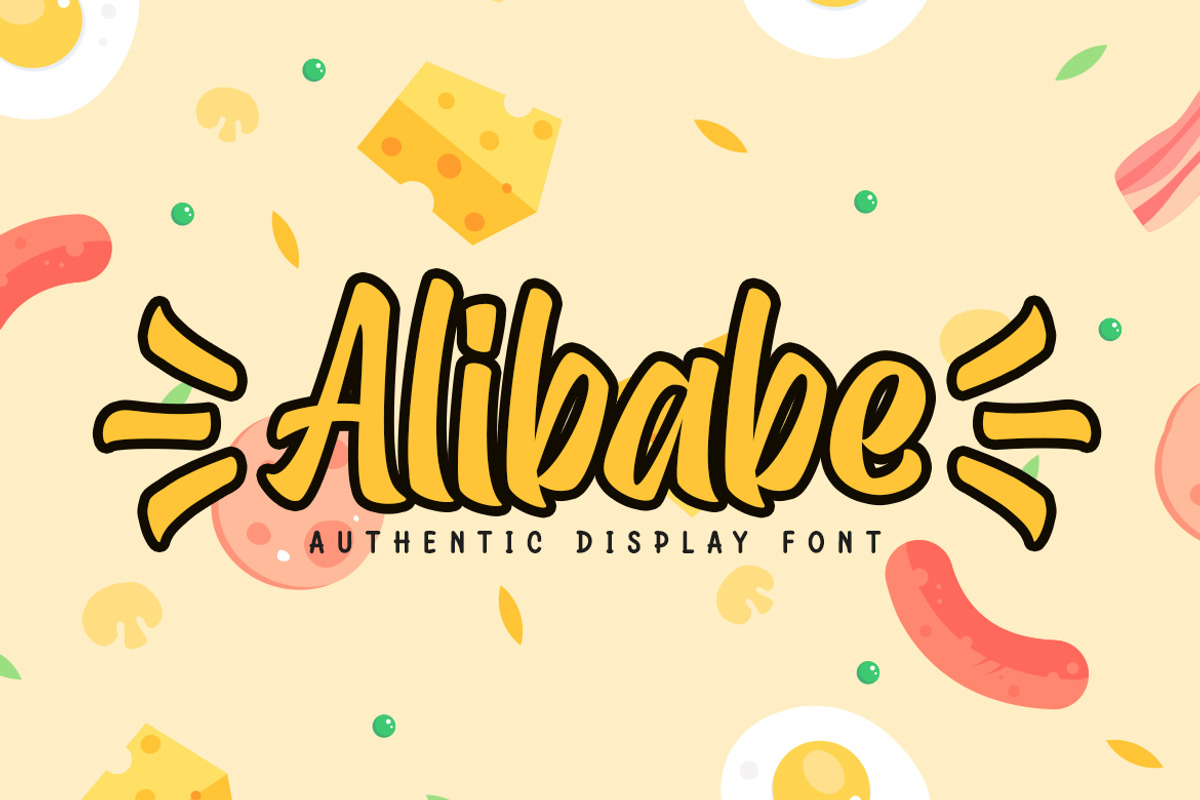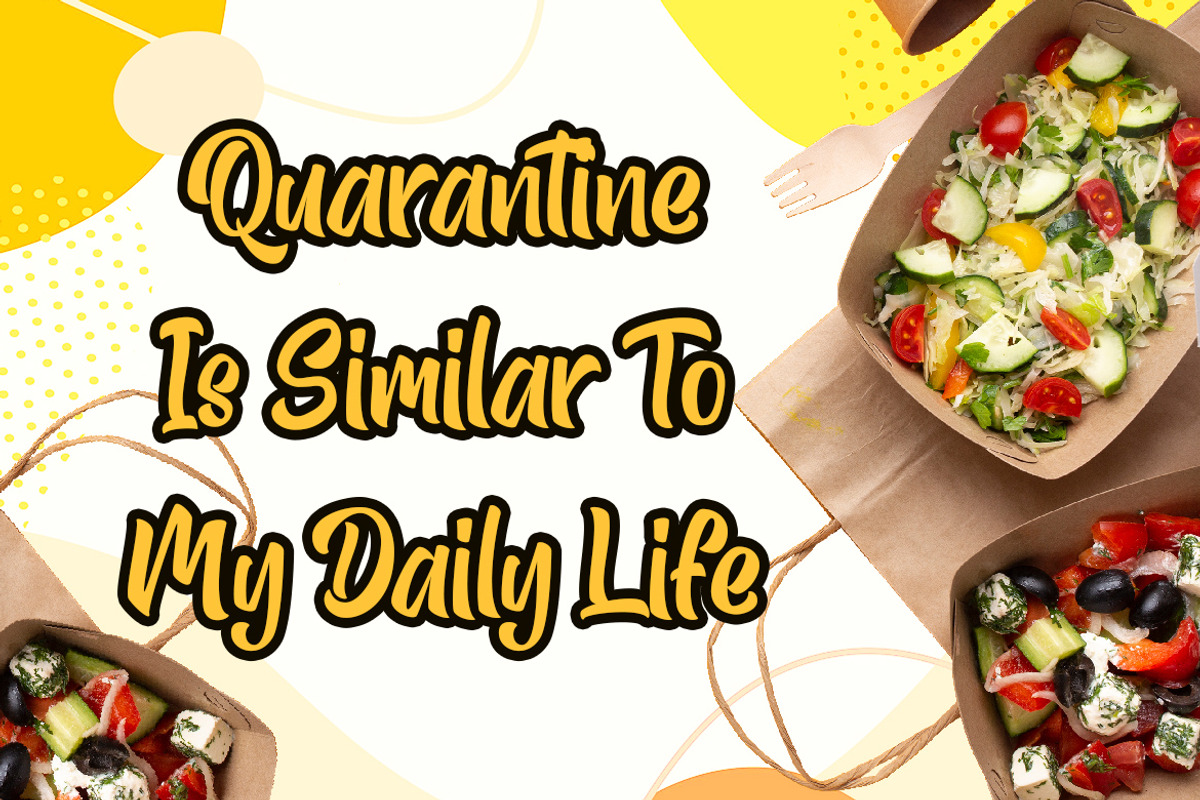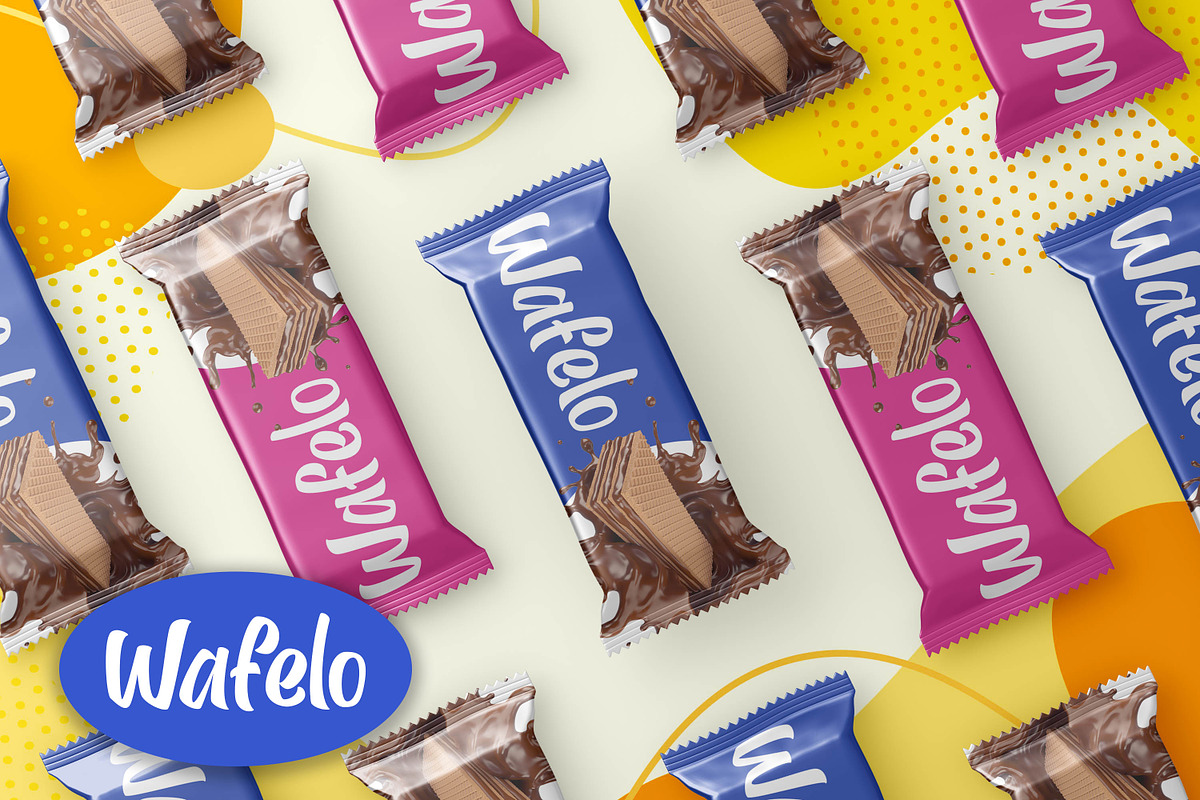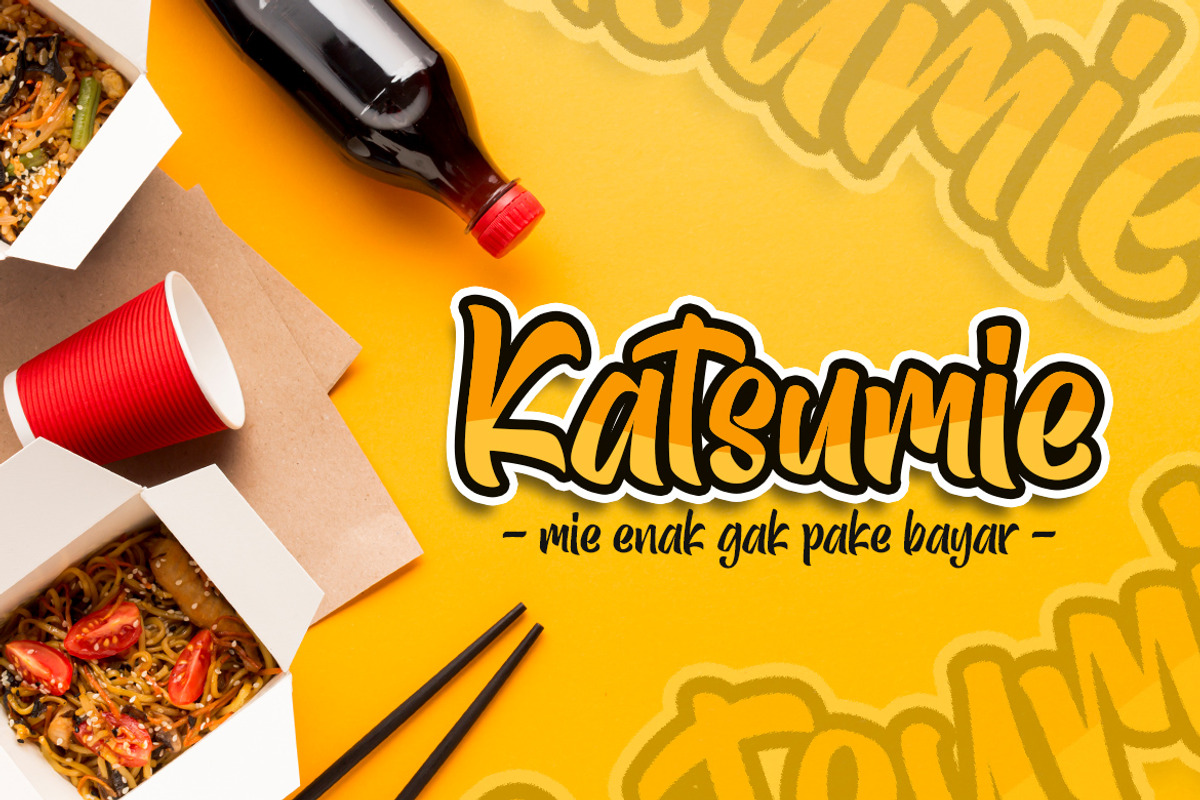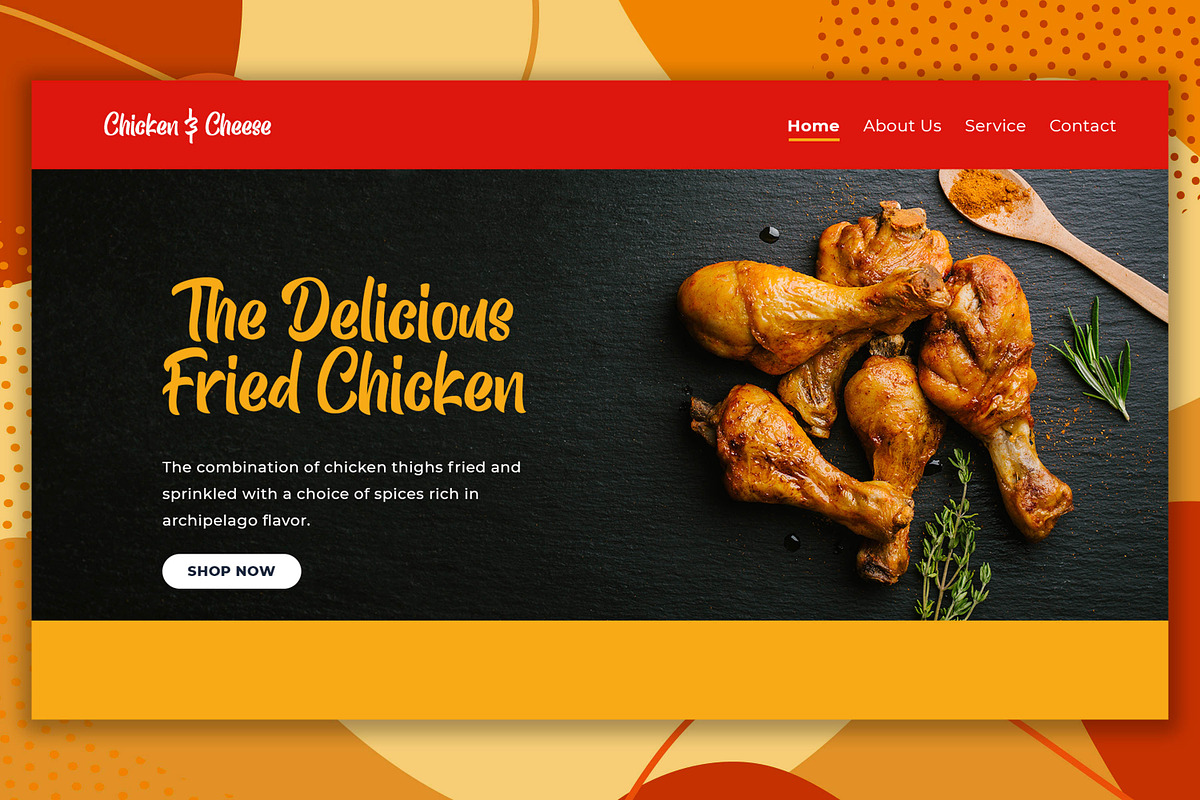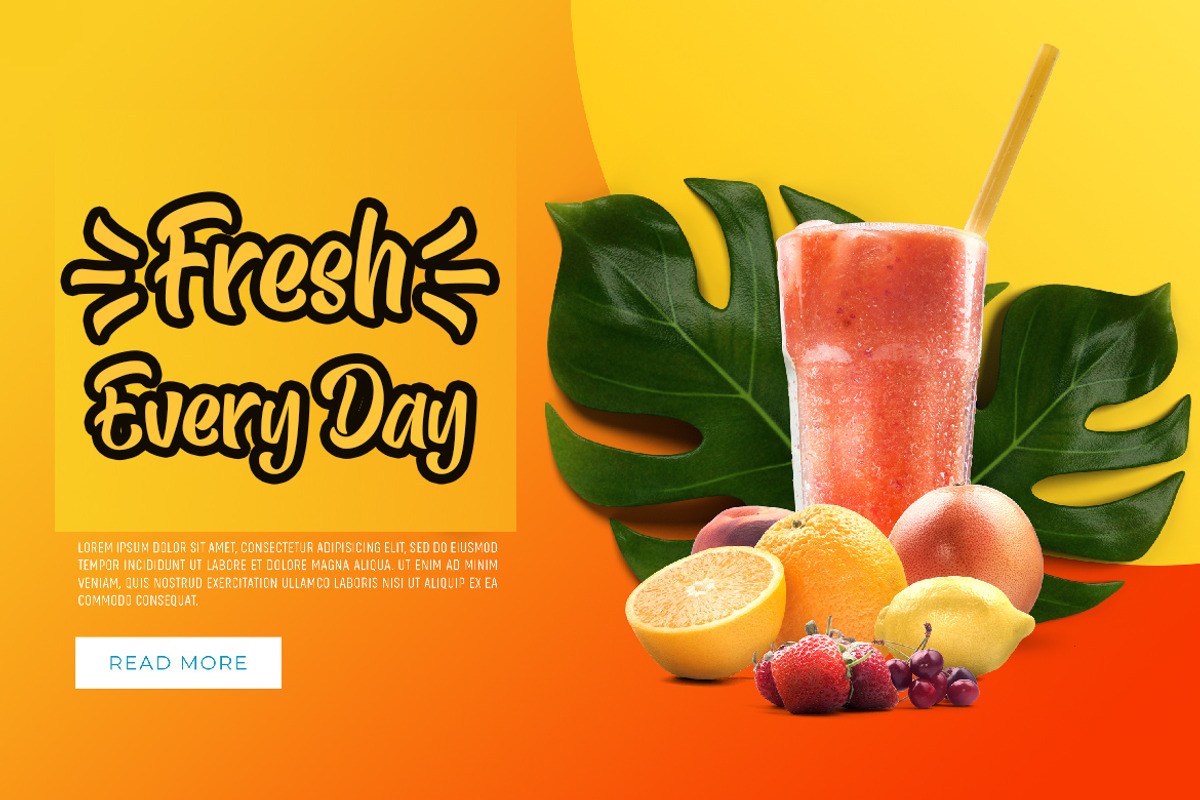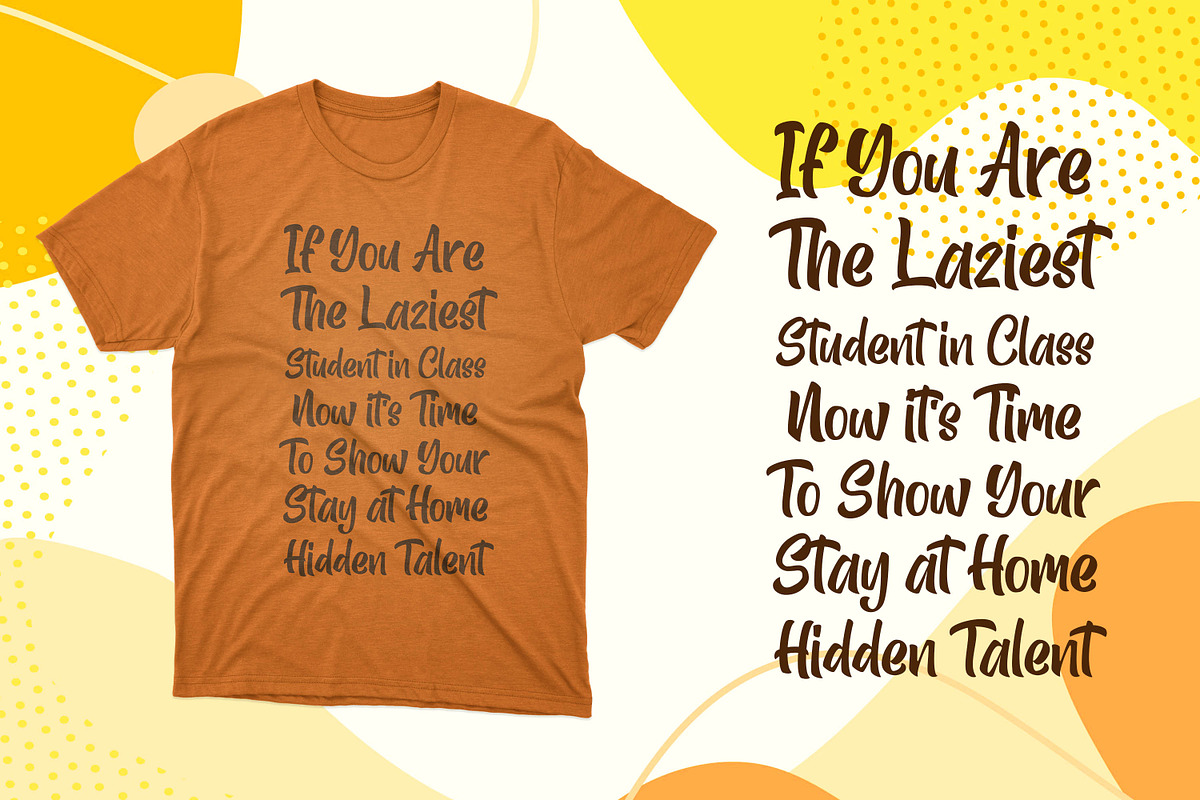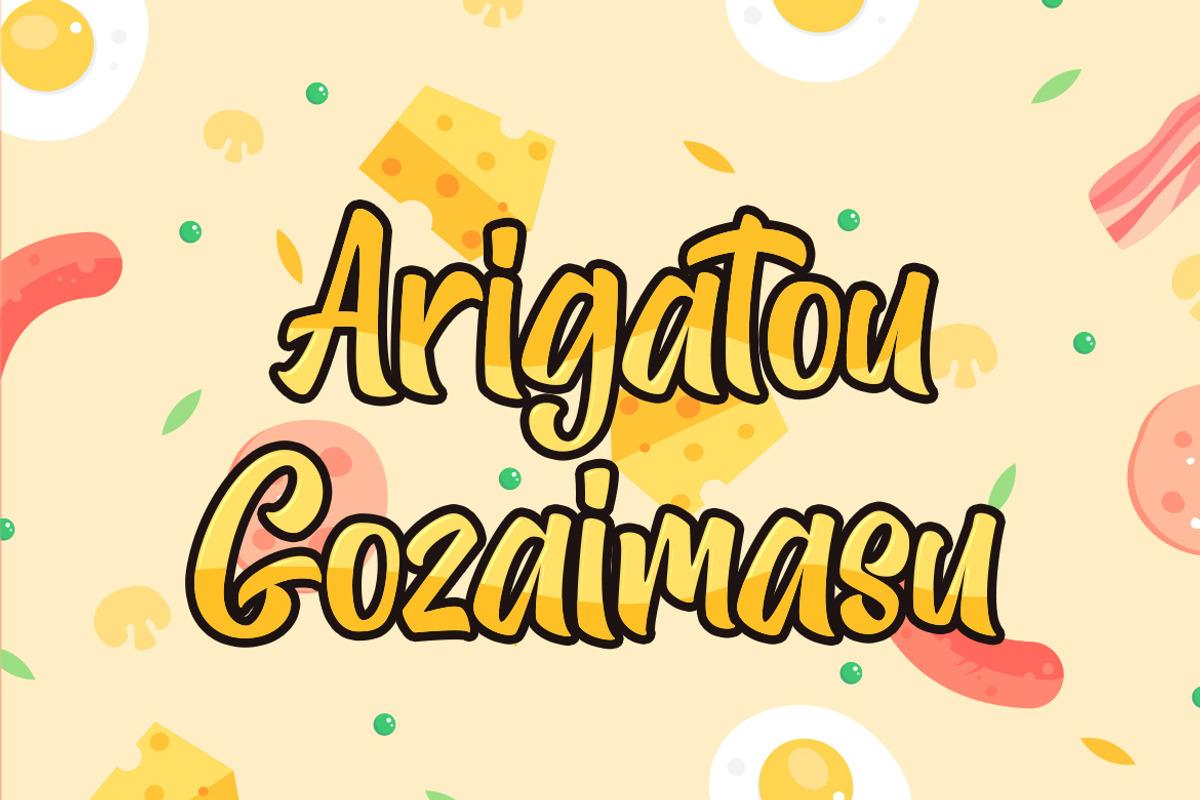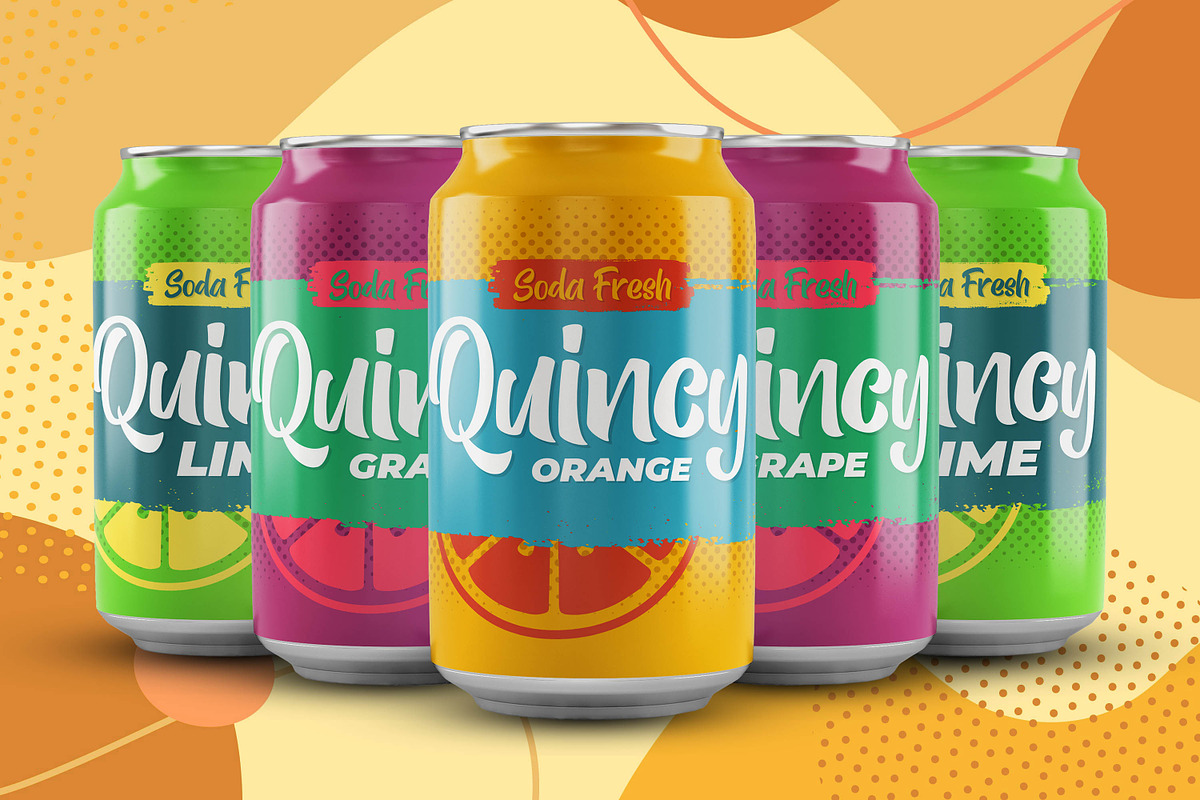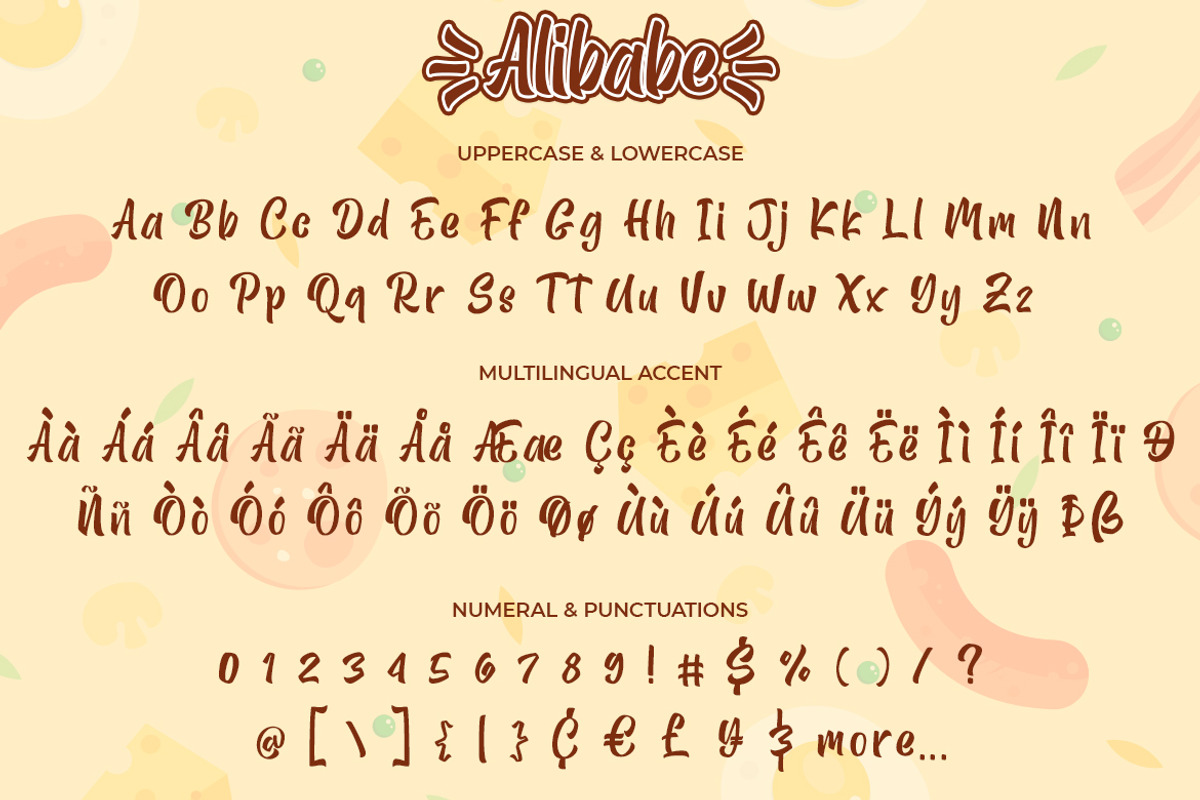
Alibabe - Authentic Display Font
Introducing Alibabe Authentic Display Font, Inspired by Food Logo style and combination with Cute Craft style. that will fulfill your design needs for quotes,sporty theme, logotype, wordmark, etc. This has many opentype features and support multi language.